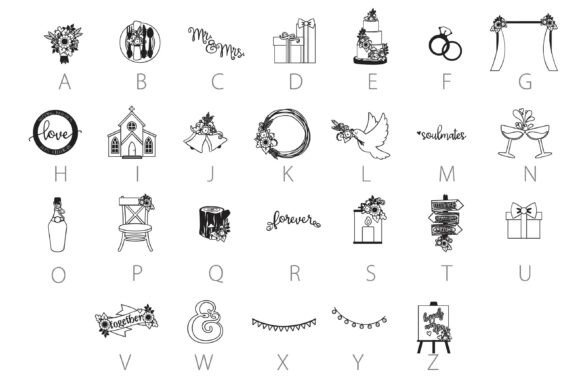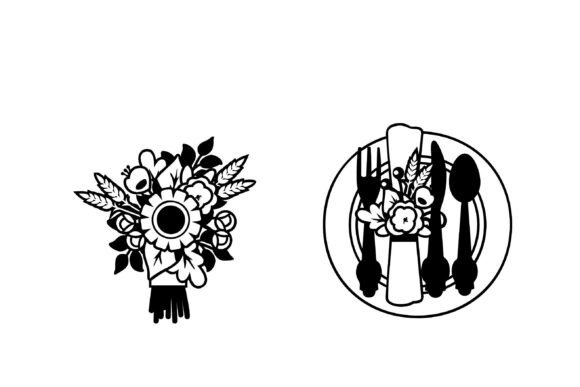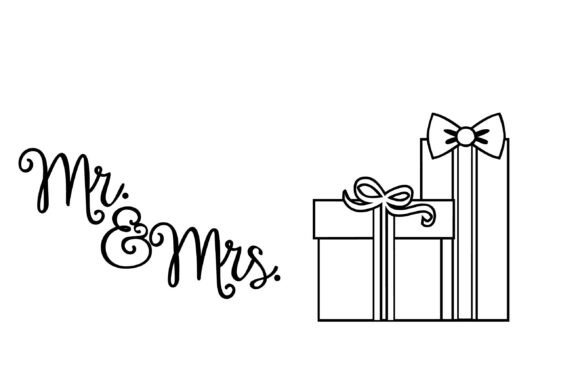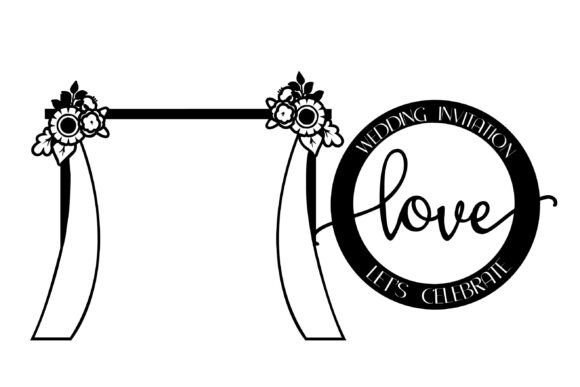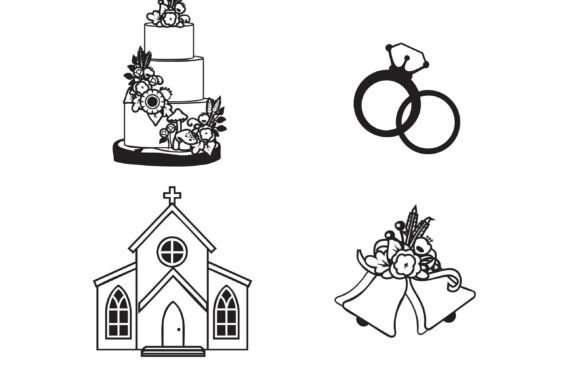
Fall in Love with the Elegance of Fall Love Affair Reception Dingbats Font
As the seasons change and autumn arrives, romance is in the air. For designers and crafters looking to capture the essence of the season, the Fall Love Affair Reception Dingbats Font is a perfect choice. This elegant collection of wedding-themed icons and dingbats is designed to help you create beautiful and sophisticated designs that exude the timeless romance of the season.
A Beautiful Collection of Wedding-Themed Icons and Dingbats
The Fall Love Affair Reception Dingbats Font features a stunning collection of beautifully detailed line art of reception essentials. From multi-tiered floral cakes and rustic wreaths to sophisticated table settings and bubbly champagne toasts, this set has everything you need to create romantic and elegant designs. Each icon and dingbat is meticulously crafted to capture the intricate details of a wedding reception, making it perfect for a variety of design projects.
Timeless Romance and Delicate Botanical Accents
What sets the Fall Love Affair Reception Dingbats Font apart is its “timeless-romance” soul and delicate botanical accents. The font features a range of autumnal elements, including leaves, flowers, and berries, which add a touch of whimsy and romance to any design. Whether you’re creating wedding stationery, social media assets, or custom reception menus, this font is sure to evoke the feeling of a warm and cozy autumn wedding.
Perfect for Independent Wedding Planners and Boutique Stationery Designers
The Fall Love Affair Reception Dingbats Font is a premier choice for independent wedding planners and boutique stationery designers looking to add a touch of elegance to their branding and designs. With its sophisticated and romantic aesthetic, this font is perfect for creating custom wedding stationery, reception menus, and social media assets that will make any wedding planner or designer stand out.
The versatility of the Fall Love Affair Reception Dingbats Font is one of its most appealing features. With a wide range of icons and dingbats to choose from, designers and crafters can create a variety of designs, from simple and elegant to complex and ornate. Whether you’re creating:
- Custom wedding stationery, such as invitations and save-the-date cards
- Reception menus and place cards
- Social media assets, such as Instagram graphics and Facebook posts
- Cinematic autumn-wedding videos and trailers
- Boutique stationery designs, such as wedding planners and journals
the Fall Love Affair Reception Dingbats Font is the perfect choice.
Why Choose the Fall Love Affair Reception Dingbats Font?
So why choose the Fall Love Affair Reception Dingbats Font for your design projects? Here are just a few reasons:
- Elegant and sophisticated aesthetic: The font features a beautiful, timeless-romance aesthetic that is perfect for wedding and autumn-themed designs.
- Delicate botanical accents: The font includes a range of delicate botanical accents, such as leaves, flowers, and berries, which add a touch of whimsy and romance to any design.
- Versatile and flexible: The font features a wide range of icons and dingbats, making it perfect for a variety of design projects.
If you’re looking for a beautiful and elegant font to capture the romance of the season, look no further than the Fall Love Affair Reception Dingbats Font. With its timeless-romance aesthetic, delicate botanical accents, and versatile design, this font is perfect for a variety of design projects. Whether you’re an independent wedding planner, boutique stationery designer, or crafter, this font is sure to inspire your creativity and help you create stunning designs that will leave a lasting impression.